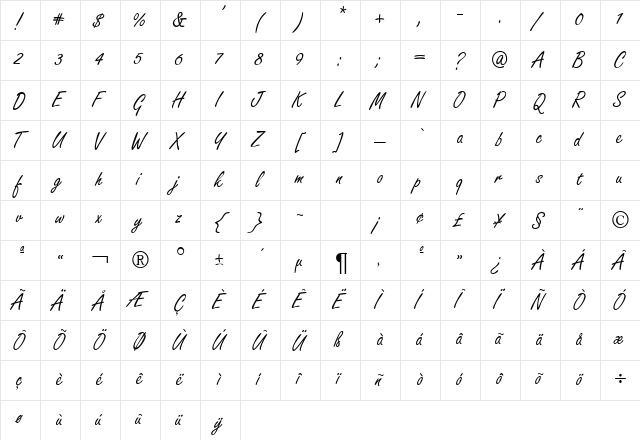
FreshhandDB Normal Font Preview
FreshhandDB Normal
Design Context for FreshhandDB Typeface
FreshhandDB brings a calligraphic fluidity to the page — its connecting strokes and expressive curves give it an unmistakably human quality.
Font Pairing: Combine FreshhandDB with a simple geometric sans for maximum contrast — the tension between flowing curves and clean structure is a classic typographic pairing.
Pro Tip: Use FreshhandDB for short runs of text — names, titles, or taglines. Extended body copy in script faces tires the eye quickly.